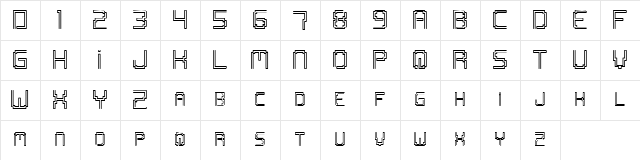
OpenMind Regular
Design Context for OpenMind Typeface
OpenMind is a composed and adaptable typeface that performs quietly and consistently across a wide range of design contexts.